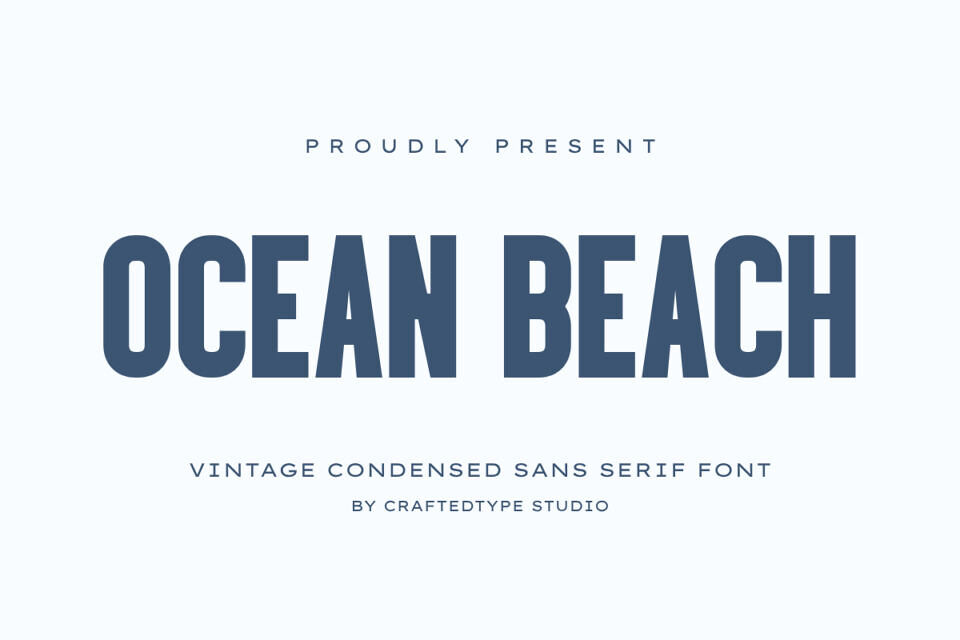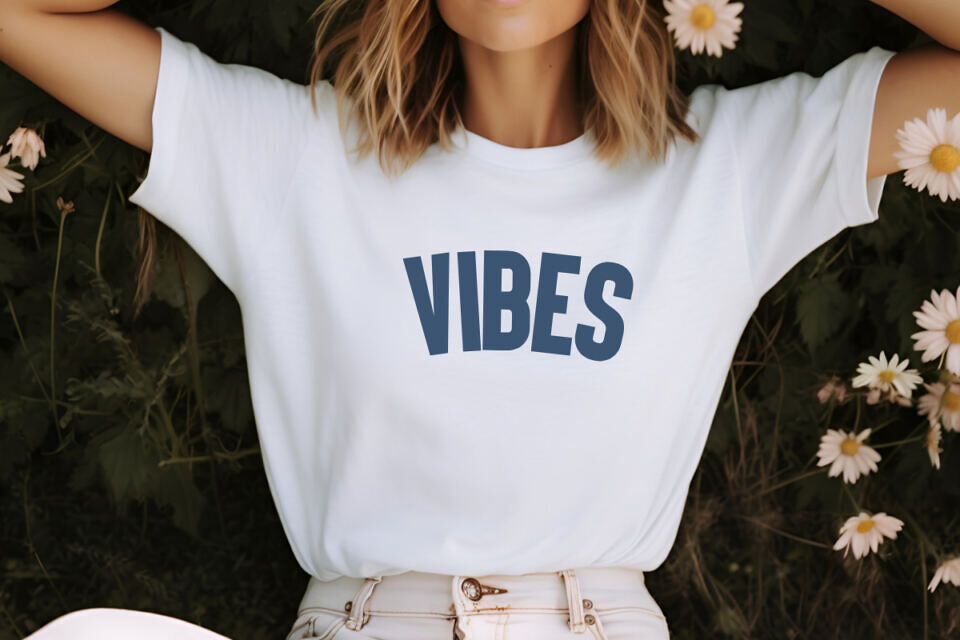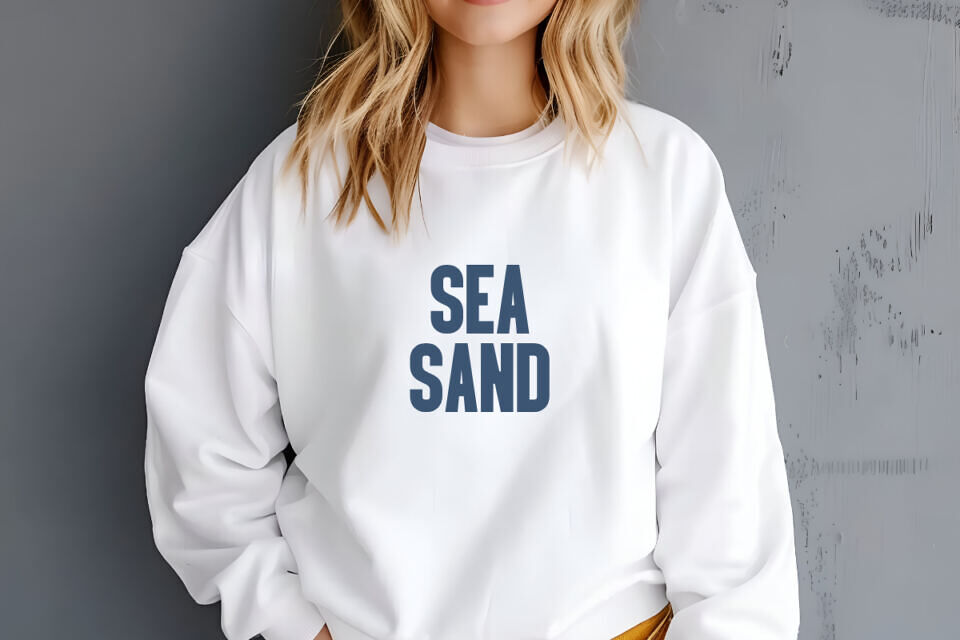
Ocean Beach is a sleek and stylish vintage condensed sans serif font designed for creators who value clean aesthetics and strong visual impact. With its tall, narrow letterforms and timeless retro charm, this font is perfect for Print On Demand projects like t-shirts, posters, mugs, and tote bags, as well as for branding, logos, and modern packaging.
Its versatile style fits both professional and playful designs, making it ideal for summer-themed projects, coastal branding, or minimalist editorial layouts.